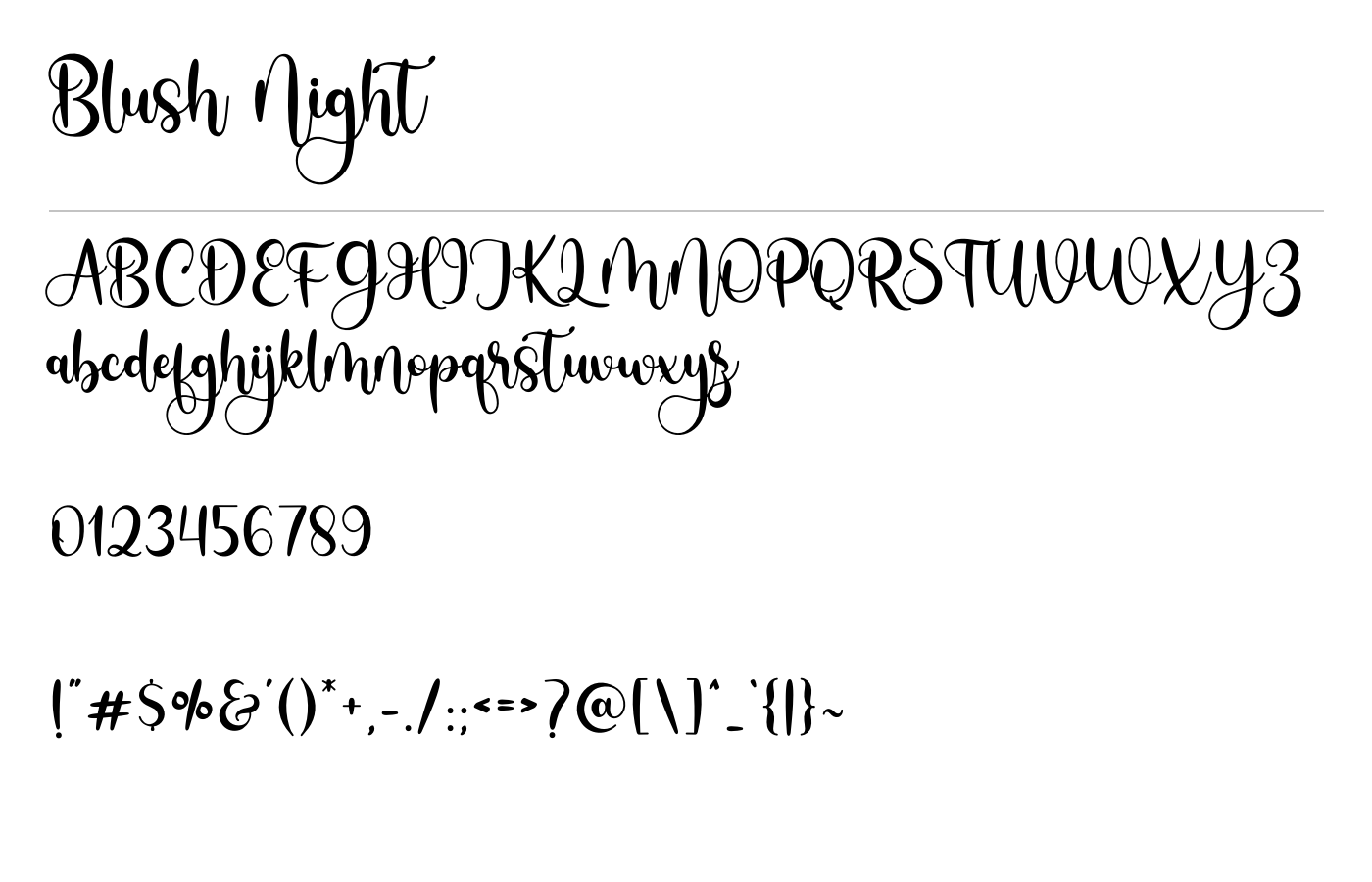
Blush Night is a charming script font with elegant, flowing letterforms that combine a bold weight with delicate swashes and curls, giving it a playful yet sophisticated feel. Its high contrast strokes and decorative flourishes make it ideal for invitations, branding, and headlines where a personal, handcrafted touch is desired. This font works beautifully in fashion, beauty, and creative projects seeking a stylish and graceful appearance.
Blush Night Font
About Blush Night Font
| Font family | Blush Night Font |
| Designer | Ainur Rofiq |